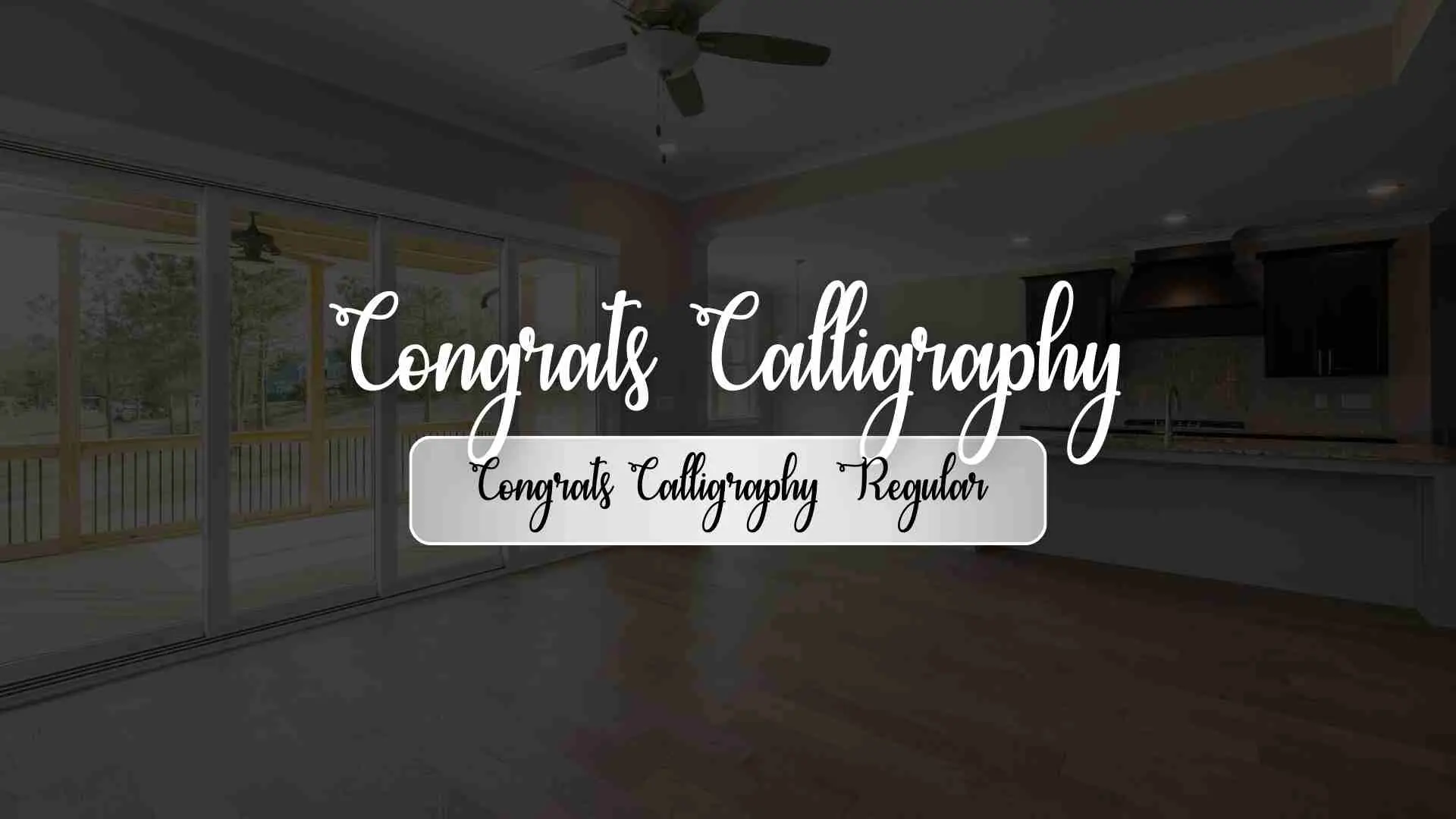
The font Congrats Calligraphy Regular, designed by Misti's Fonts, falls under the Display category & Congrats Calligraphy font family. Its smooth, flowing letterforms make it a versatile choice for projects that require both elegance and readability. Congrats Calligraphy is particularly well-suited for Branding, Headlines, Titles, Advertising, Blog headers, Book covers and Christmas. With its balance of simplicity and decorative appeal, this font brings a polished touch to both personal and professional designs.